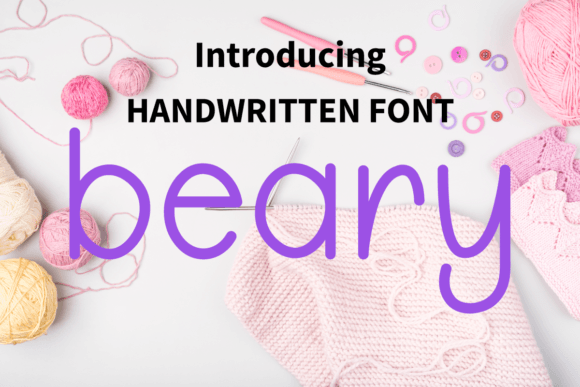
Remember that moment when a font choice made all the difference in your design? Maybe it was a quirky script that elevated a logo, or a bold sans-serif that made a statement. For designers, the right font can be the game-changer that takes a project from meh to mesmerizing.
Enter Beary Font, a fun and friendly handwritten font that’s sure to brighten up your designs. With its whimsical and quirky charm, Beary Font is perfect for adding a personal touch to your projects. Whether you’re creating logos, wedding invitations, or advertisements, this typeface is sure to make an impression.
What sets Beary Font apart is its versatility and ease of use. With its friendly and approachable feel, it’s a valuable addition to any designer’s toolkit. So why not give Beary Font a try and see the magic it can bring to your designs?
Key Features of Beary Font
- Unique Characteristics: The Beary Font features a distinctive, hand-drawn design with a playful and whimsical feel, making it perfect for children’s books, educational materials, and other projects that require a friendly and approachable tone.
Designer Review: Beary Font
Beary Font is a cute and endearing typeface that’s perfect for designs that need a playful touch. ✨ The rounded edges and simple design make it an excellent choice for children’s books, advertising, and other projects that require a lighthearted atmosphere.
The font is highly customizable, with a wide range of weights and styles available. This allows designers to easily match the font to their project’s specific needs. ✨ The font also supports a variety of languages, making it a great option for global projects.
- ⚠️ The font may not be suitable for professional or formal designs, as it can come across as too childish.
- ⚠️ Some users may find the font too simplistic or lacking in character, which can make it difficult to read at smaller sizes.
- ⚠️ The font does not support italics, which can be a limitation for designers who rely heavily on italic text.
Overall, Beary Font is a solid choice for designers who need a fun and playful typeface. While it may have some limitations, its customization options and wide language support make it a versatile and useful addition to any design toolkit.
Getting the Most Out of Beary Font
To get the most out of Beary Font, try the following:
- Use Beary Font in combination with other fonts for a layered look.
- Adjust the font color to match your brand or design scheme.
Beary Font is perfect for:
- Children’s book illustrations.
- Cartoon-style graphics.
- Brand logos and icons.
Alternatives to Beary Font for Designers
Lobster Font is a fun, cursive font that is perfect for creating eye-catching headings and titles. It is ideal for use in creative projects, such as fashion, food, and entertainment branding. Lobster Font has a more playful and casual feel compared to Beary Font, which makes it suitable for a wider range of applications.
Compared to Beary Font, Lobster Font has a more fluid and connected feel, making it better suited for longer text blocks. Beary Font, on the other hand, has a more rustic and handwritten feel, making it ideal for short text blocks and decorative elements.
Cinzel Font
Cinzel Font is a beautiful, elegant font that is perfect for creating high-end and sophisticated designs. It is ideal for use in luxury branding, such as high-end fashion, jewelry, and automotive. Cinzel Font has a more refined and polished feel compared to Beary Font, which makes it suitable for formal and professional applications.
Compared to Beary Font, Cinzel Font has a more structured and formal feel, making it better suited for long text blocks and formal documents. Beary Font, on the other hand, has a more casual and rustic feel, making it ideal for creative and decorative applications.
Can I customize Beary Font?